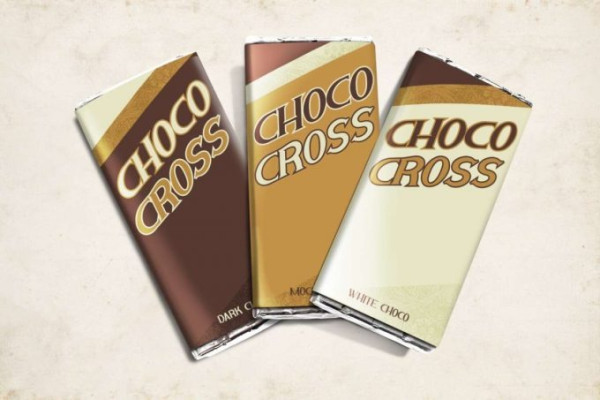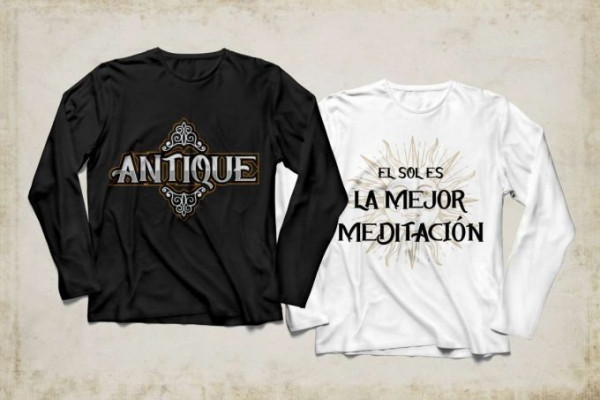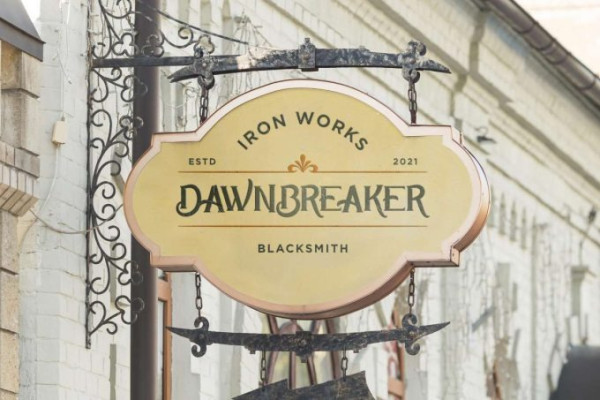
Dark Book Font
Dark Book Font is an awesome gaming inspired display font with two style options : Regular and Italic plus various alternative decorative characters/letters. The font will suitable for many projects including games, festival, movie poster, esport team, racing, apps and many more
This font is perfect for many projects, branding design, headings, lettering, logos, products packaging, screen printing, signage, stationery, quotes, webpage and more! Be a perfect professional in a minute and start creating today!